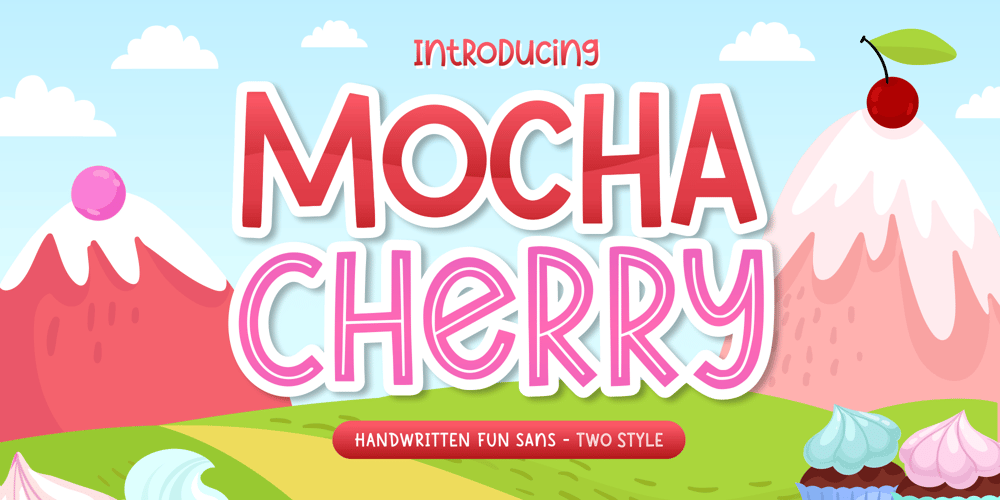
Mocha Cherry
Mocha Cherry font
Mocha Cherry Font Family was designed by Fachrizal Yusuf and published by Allouse Studio. Mocha Cherry contains 2 styles and family package options. Proudly Present, Mocha Cherry a Handwritten Fun Sans with Two Styles, Inline and Regular.Mocha Cherry is perfect for product packaging, branding project, megazine, social media, wedding, or just used to express words above the background.Mocha Cherry also come with Multi-Lingual Support.Enjoy the font, feel free to comment or feedback, send me PM or email. Thank You!